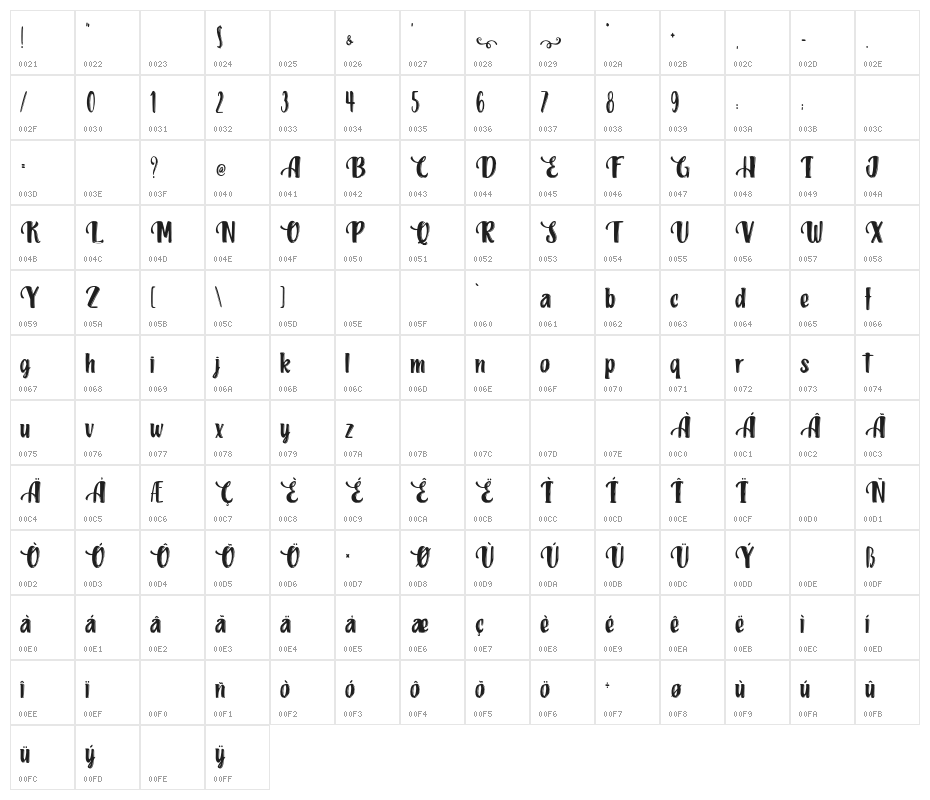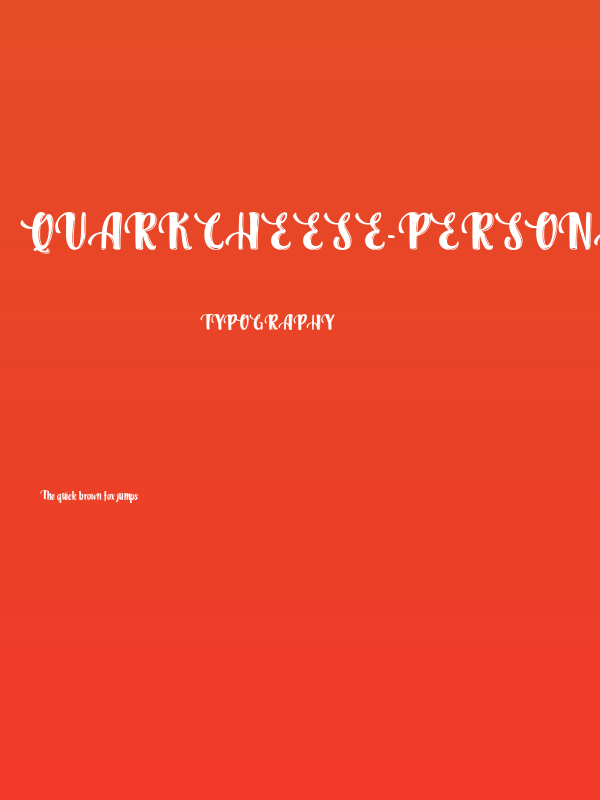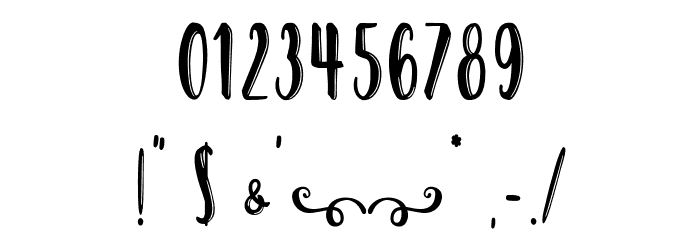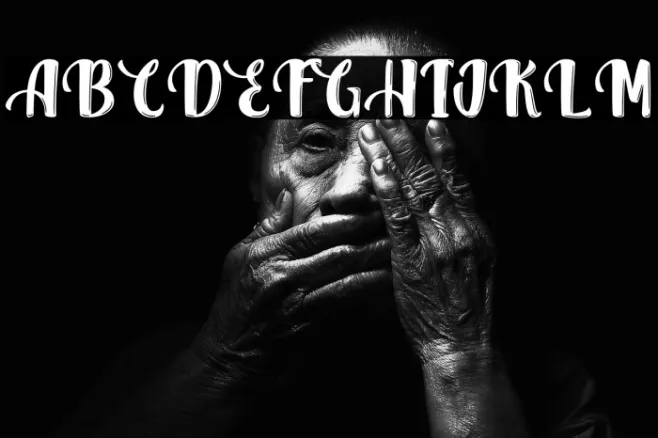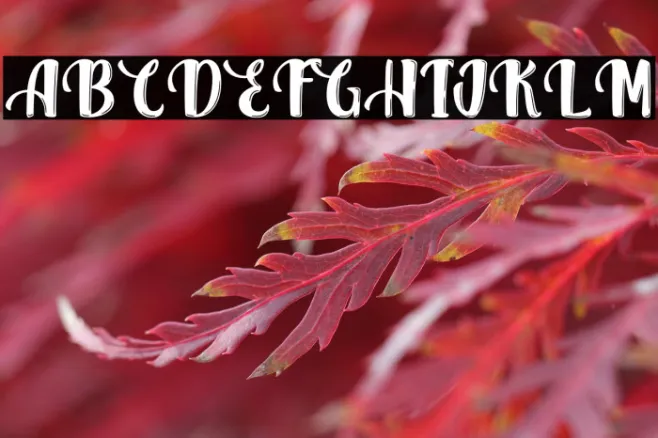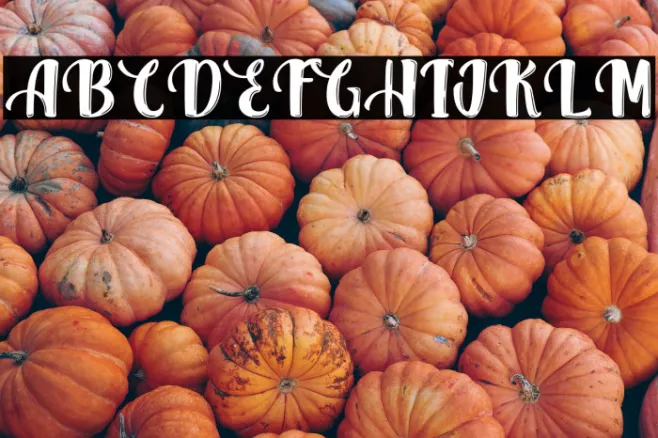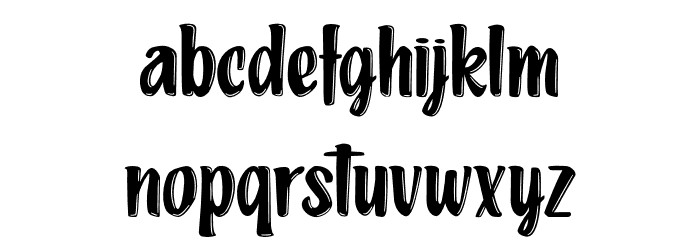
QuarkCheese-PersonalUse Font
QuarkCheese-PersonalUse Description
This font features a playful and bold script style with a distinct hand-drawn appearance. The letters are characterized by their thick, flowing strokes and slight slant, giving them a dynamic and energetic feel. The uppercase letters are particularly decorative, with some featuring unique flourishes and loops. The lowercase letters maintain a consistent style, complementing the uppercase with their rounded forms and smooth curves. Numbers and special characters follow the same aesthetic, ensuring a cohesive look across all text. The font's overall design is both eye-catching and whimsical, making it suitable for creative and informal applications.